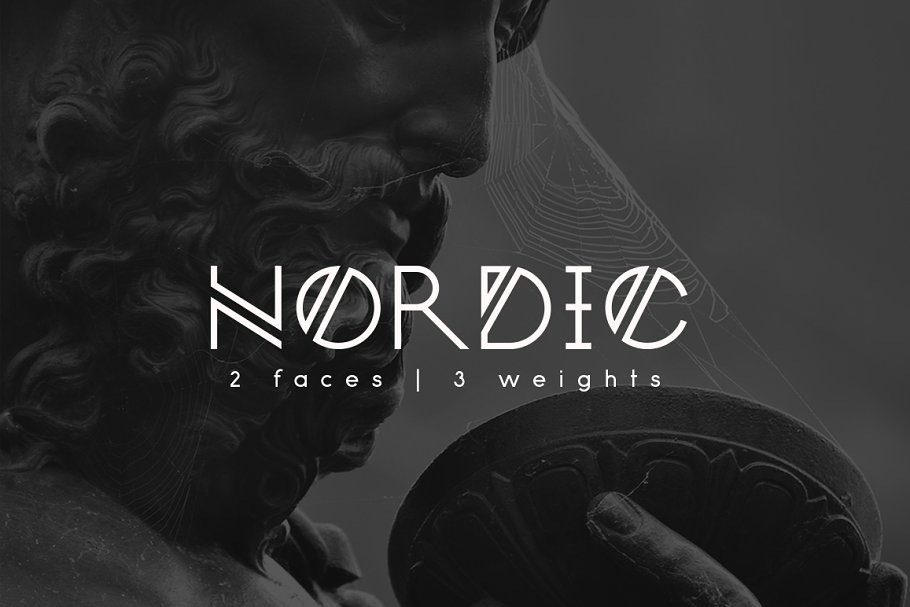
Introducing Nordic Font, the perfect font family for modern logos and design projects! Created by the talented Yana Bereziner, Nordic is a unique and modern font family that combines Scandinavian runes with elegant geometric forms. With its versatile design, Nordic can fit all your everyday design needs.
Nordic comes in two versions and features three weights in each one: light, regular, and bold. The font includes uppercase letters, numbers, and basic punctuation, making it perfect for logos, monograms, titles, and posters that need a lot more personality.
The main version of Nordic can also be used as supporting text, while its alternative version is suitable for big titles and headlines. Whether you need a font that looks good small or big, Nordic has got you covered.
So why choose Nordic? For starters, its unique design will help your brand stand out from the competition. Plus, its versatility means you can use it for a wide range of design projects, from logos to posters and more.